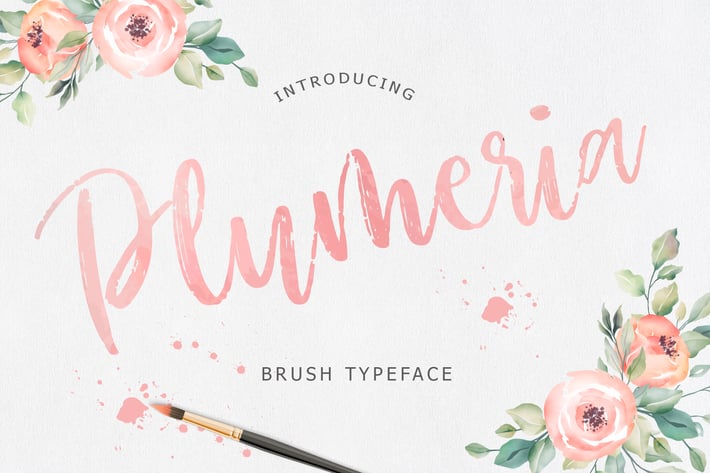
Plumeria Brush Script Font
Plumeria Brush Script Font is a Brush effect Script font, can make your text appear elegant, luxurious, and modern!
Plumeria is perfect for branding projects, logo, wedding designs, social media posts, advertisements, product packaging, tshirt design, product designs, label, photography, watermark, invitation, stationery and any projects.